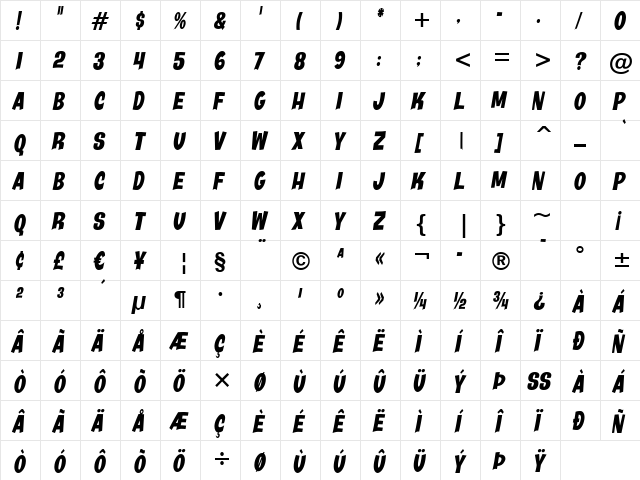
Java Kick BTN Cond BoldOblique Font Preview
Design Context for Java Kick BTN Cond Typeface
Java Kick BTN Cond offers clean, dependable letterforms without strong stylistic allegiance, making it a practical choice for designers who need flexibility. Its italic angle brings a sense of urgency and motion to the letterforms. The heavy weight commands attention and anchors typographic hierarchies. Its narrow stance lets it pack a punch even in space-constrained designs.
Pro Tip: Try Java Kick BTN Cond for annotation and caption copy alongside an upright companion — the contrast in angle creates a dynamic but ordered typographic system.